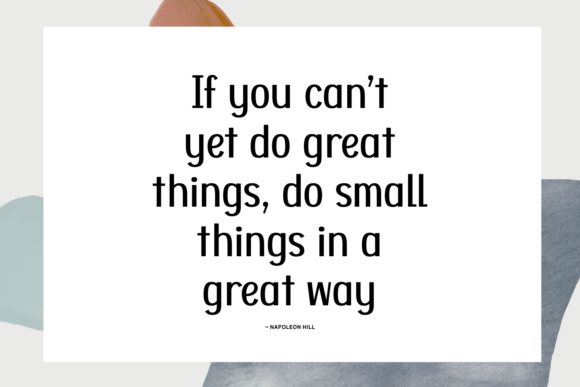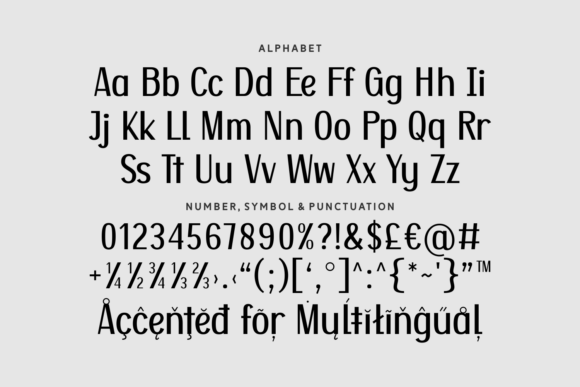
Fantasy Stories Font: Elevate Your Designs with a Charming Sans Serif Font
In the world of typography, fonts play a crucial role in conveying the tone and personality of a brand or design. For designers and crafters looking for a font that combines modern simplicity with a touch of personality, Fantasy Stories Font is an excellent choice. This charming sans serif font is designed to bring a fresh, editorial flair to various design projects, making it perfect for storytelling, lifestyle branding, packaging, and magazine headlines.
What Makes Fantasy Stories Font Stand Out?
Fantasy Stories Font boasts tall, rounded letterforms that blend modern simplicity with subtle personality. Its clean structure and unique curves make it an ideal choice for designers seeking a font that invites creativity while maintaining a polished and professional look. The font’s sans serif design ensures that it remains versatile and adaptable to various design contexts, from digital platforms to print materials.
Key Features of Fantasy Stories Font
- Fresh Editorial Flair: Fantasy Stories Font brings a modern and editorial feel to designs, making it perfect for lifestyle branding, magazine headlines, and packaging.
- Tall and Rounded Letterforms: The font’s tall, rounded letterforms add a touch of elegance and sophistication to designs.
- Clean Structure: The font’s clean structure ensures that it remains legible and easy to read, even at smaller font sizes.
- Unique Curves: The font’s unique curves add a touch of personality and whimsy, making it perfect for designs that require a bit of flair.
- Polished and Professional: Despite its creative and playful feel, Fantasy Stories Font maintains a polished and professional look, making it suitable for a wide range of design applications.
Use Cases for Fantasy Stories Font
Fantasy Stories Font is a versatile font that can be used in various design contexts. Here are some use cases where this font excels:
- Lifestyle Branding: Use Fantasy Stories Font to create a fresh and modern brand identity that resonates with your target audience.
- Magazine Headlines: The font’s editorial flair makes it perfect for magazine headlines, adding a touch of sophistication and elegance to your publication.
- Packaging Design: Fantasy Stories Font is an excellent choice for packaging design, adding a touch of personality and whimsy to your product packaging.
- Storytelling: The font’s clean structure and unique curves make it perfect for storytelling, whether you’re creating a children’s book, a novel, or a comic book.
Tips for Using Fantasy Stories Font
To get the most out of Fantasy Stories Font, here are some tips to keep in mind:
- Experiment with Font Sizes: Fantasy Stories Font remains legible at various font sizes, so experiment with different sizes to find the perfect fit for your design.
- Pair with Other Fonts: The font’s versatility makes it easy to pair with other fonts. Experiment with different font combinations to create a unique and visually appealing design.
- Use for Headlines and Body Text: Fantasy Stories Font is suitable for both headlines and body text. Use it to create a cohesive and visually appealing design.
Fantasy Stories Font is a charming sans serif font that brings a fresh, editorial flair to various design projects. Its tall, rounded letterforms blend modern simplicity with subtle personality, making it perfect for designers and crafters looking for a font that invites creativity while maintaining a polished and professional look. With its versatility and adaptability, Fantasy Stories Font is an excellent choice for lifestyle branding, magazine headlines, packaging design, and storytelling.
Whether you’re a designer or crafter, Fantasy Stories Font is a valuable addition to your typography toolkit. So why not give it a try and elevate your designs with this charming sans serif font?